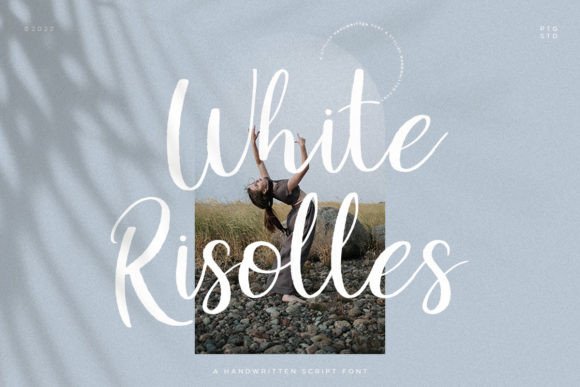
Step into the world of impeccable written impressions with White Risolles - the script font that transcends ordinary communication. Created by the esteemed Pentagonistudio, this font is a testament to the allure of authenticity and elegance.
White Risolles encapsulates the essence of natural handwriting, carefully crafted to evoke a personal touch in every letterform. Its graceful lines dance across the page, inviting readers to immerse themselves in the warmth of genuine expression. Whether it's a heartfelt cover letter, an intimate wedding invitation, or a captivating business card, White Risolles elevates your words to new heights of sophistication.
Beyond its aesthetic charm, White Risolles is a versatile performer, adapting seamlessly to a myriad of creative endeavors. Its elegant curves lend an air of distinction to branding materials, adding a touch of class to logos, brochures, and packaging designs. Unleash your creativity and explore the boundless possibilities that await with White Risolles.
Imagine your cover letter, the gateway to your professional aspirations, adorned with the impeccable artistry of White Risolles. Its carefully crafted characters speak volumes about your attention to detail, conveying a sense of professionalism and dedication that sets you apart from the competition. As hiring managers peruse your application, they'll be captivated by the authenticity and elegance of White Risolles, recognizing your commitment to excellence.
White Risolles is more than just a font; it's an extension of your personal style, a reflection of your unique identity. With its timeless appeal and versatility, it empowers you to make a lasting impression in both your personal and professional endeavors. Embrace the beauty of handwritten elegance and elevate your written expressions to new heights with White Risolles.